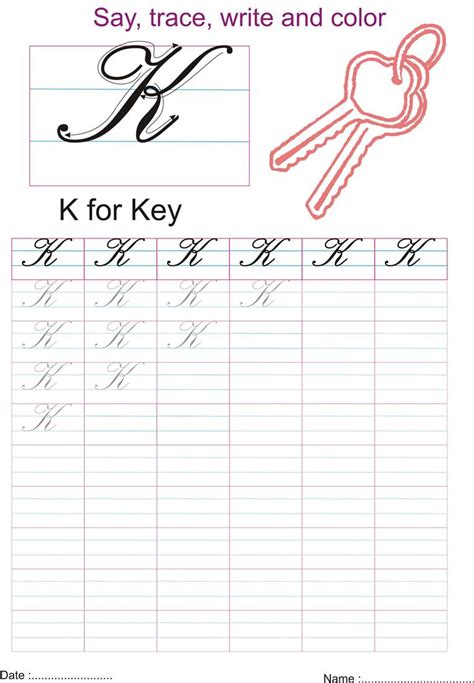
Cursive Letter K Fonts
Mastering the art of handwriting is a journey that begins with understanding the structure of individual letters, and the Capital K In Cursive stands as one of the most elegant yet challenging characters to perfect. Unlike its printed counterpart, the cursive uppercase K features a sophisticated loop and a flowing stroke that connects seamlessly to the following lowercase letters. Whether you are a student refining your penmanship or an adult looking to improve your signature, learning to write this letter with grace and precision is a valuable skill that adds a touch of professionalism and flair to your written work.
Understanding the Structure of the Capital K In Cursive
The Capital K In Cursive is essentially composed of two primary parts: the initial decorative stroke and the right-hand assembly. Most cursive scripts, such as the widely taught D’Nealian or Palmer methods, design this letter to begin with a downward stroke that curves slightly, followed by an elegant loop or a distinct change in direction. By breaking the letter down into smaller, manageable movements, you can develop the muscle memory needed to produce consistent results every time you put pen to paper.
When observing the letter, focus on these specific architectural components:
• The Leading Stroke: This usually starts above the midline and descends toward the baseline, creating the initial curve.
• The Loop: Many styles incorporate a small, sophisticated loop that helps the writer transition from the first stroke to the second.
• The Connecting Arms: The right side of the K consists of a diagonal stroke that touches the main spine and descends downward, often ending with a tail that prepares for the next letter.
Step-by-Step Guide to Writing the Letter
To achieve a beautiful Capital K In Cursive, you must focus on the fluidity of your movement. Avoid pressing too hard with your pen, as this creates tension in your hand and makes the loops appear cramped. Instead, use a relaxed grip and move from your shoulder rather than just your fingers.
1. Start your pen slightly above the midline of your writing space.
2. Draw a curved line downwards until you hit the baseline.
3. Lift your pen momentarily, or continue if your style allows, to begin the right-hand portion of the letter.
4. From the top of the initial stroke, bring a slanted line toward the center of your vertical line.
5. Execute a small kick or loop out to the right, ensuring the ending stroke is positioned to connect to the next letter in the word.
✍️ Note: Consistency is more important than speed. If your K looks shaky at first, slow down your pace and focus on keeping the curves smooth rather than jagged.
Comparing Cursive Styles
It is important to recognize that the Capital K In Cursive can look different depending on the specific script or educational method you are following. Some styles favor a more ornate, loopy design reminiscent of 19th-century penmanship, while modern styles are streamlined for speed and readability.
Style Key Characteristics Best For
Palmer Method Highly rhythmic and loopy Formal documents and classic flair
D'Nealian Minimalistic and easy to learn Students and daily handwriting
Spencerian Elegant, intricate, and slanted Calligraphy and artistic projects
Tips for Improving Your Penmanship
If you find that your Capital K In Cursive does not look as professional as you would like, do not feel discouraged. Handwriting is a motor skill that improves with dedicated practice. One of the best ways to improve is by practicing the letter in isolation before moving on to connecting it within words. For example, practice writing “Ka,” “Ke,” “Ki,” “Ko,” and “Ku” to get a feel for how the K connects to different vowels.
Additionally, consider these essential practices:
• Use Guided Paper: Use practice sheets with midlines to ensure your K has the correct proportions.
• Focus on Posture: Sit up straight with both feet flat on the floor to reduce fatigue.
• Choose the Right Tools: A smooth-flowing gel pen or a fountain pen can significantly reduce the friction that makes cursive writing difficult.
• Drill the Curves: Spend time drawing simple loops and waves to “warm up” your hand before tackling the K itself.
💡 Note: Always ensure your paper is tilted at a slight angle (usually 30 to 45 degrees) consistent with the slant of your writing, as this makes the Capital K In Cursive much easier to execute.
The Role of Muscle Memory
Ultimately, writing a perfect Capital K In Cursive is about training your brain and your muscles to work in harmony. When you practice, you are building a neural pathway that eventually allows you to write the letter without conscious effort. It is similar to playing a musical instrument or learning to ride a bike; once your hand understands the geometry of the strokes, the process becomes instinctive. Do not worry about perfection in the first few days of practice. Instead, aim for a steady, rhythmic flow where each line transitions naturally into the next. Over time, you will notice that your letter K becomes more uniform, confident, and distinctly your own, reflecting your personal style while adhering to the fundamental rules of cursive penmanship.